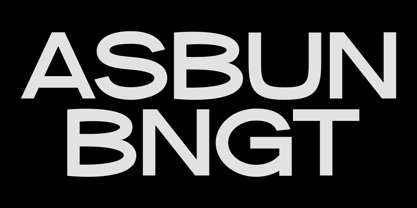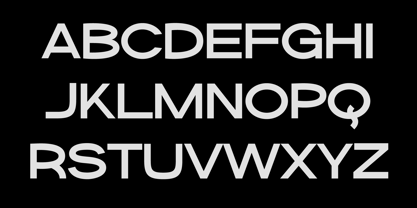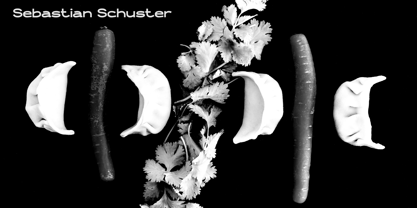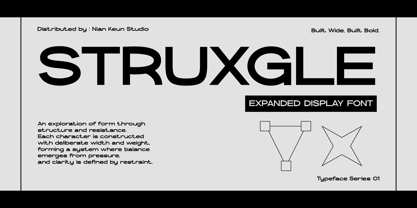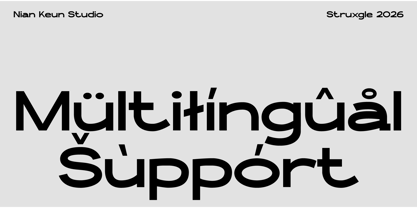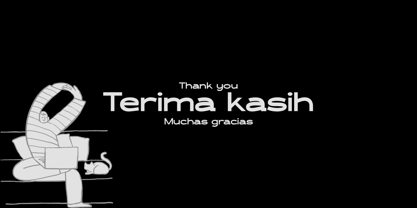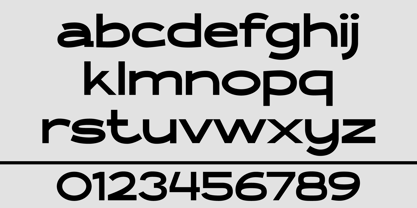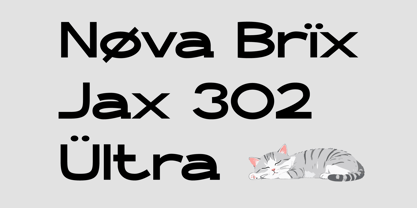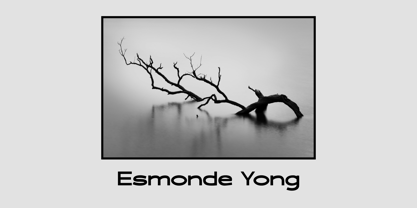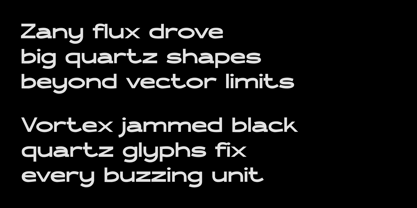
Struxgle
The Struxgle Font Family was designed by Mugi Raharjo and published by Nian Keun Studio. Struxgle contains 1 styles. More about this family
STRUXGLE is a bold expanded display typeface built around strength, structure, and visual impact. Designed with wide proportions and confident geometry, it delivers a commanding presence that instantly captures attention. Every letterform is carefully engineered to balance power and clarity, creating a modern typographic voice that feels both industrial and futuristic.
Its expansive construction makes it ideal for large-scale applications where visibility and personality matter most. From branding systems and technology-driven identities to posters, packaging, editorial headlines, and sports graphics, STRUXGLE provides a distinctive aesthetic that stands out across digital and print media.
With its clean lines, wide stance, and contemporary attitude, STRUXGLE embodies the spirit of modern design—bold enough to dominate, refined enough to remain versatile.
Perfect For
• Branding & Logo Design
• Technology & Startup Projects
• Sports Graphics
• Posters & Headlines
• Packaging Design
• Editorial Layouts
• Social Media Content
• Automotive Branding
• Gaming & Esports
• Modern Advertising
Features
• Uppercase & Lowercase
• Numerals & Punctuation
• Multilingual Support
• Stylistic Alternates
• Clean & Modern Design
• Wide Expanded Structure
• High Impact Display Style